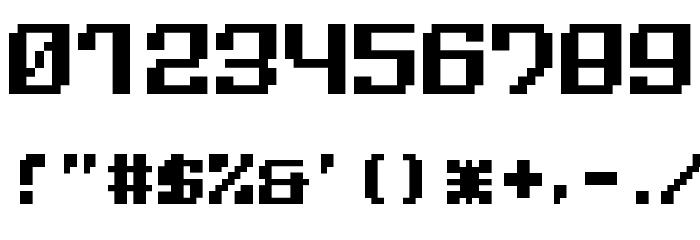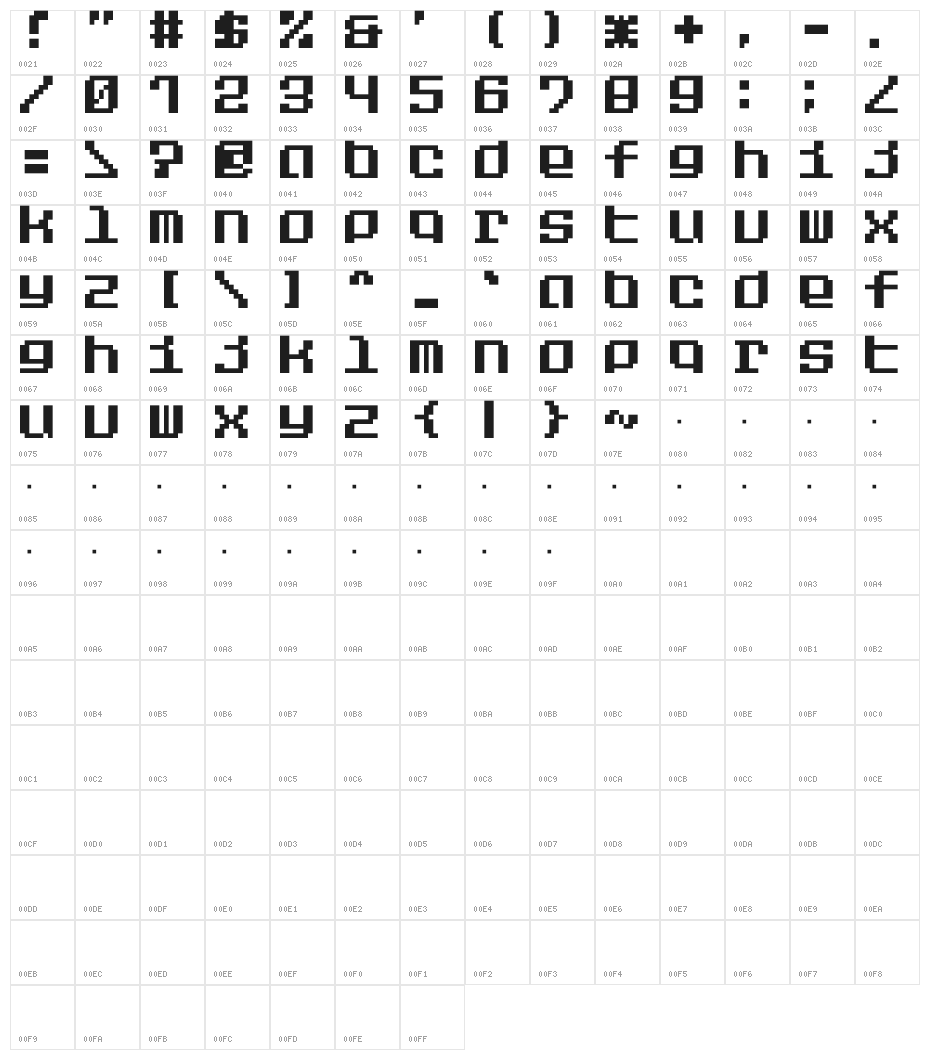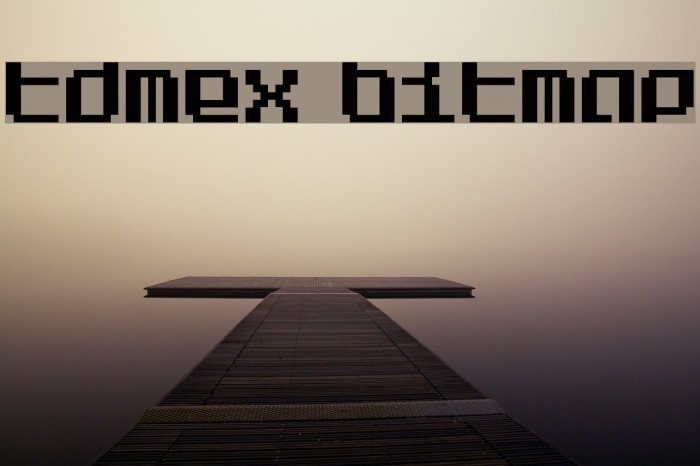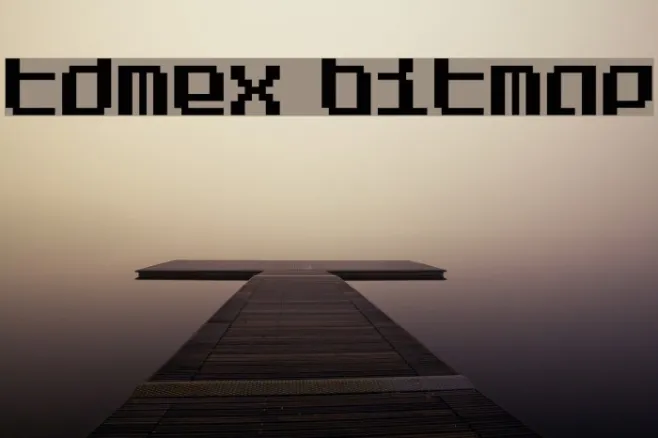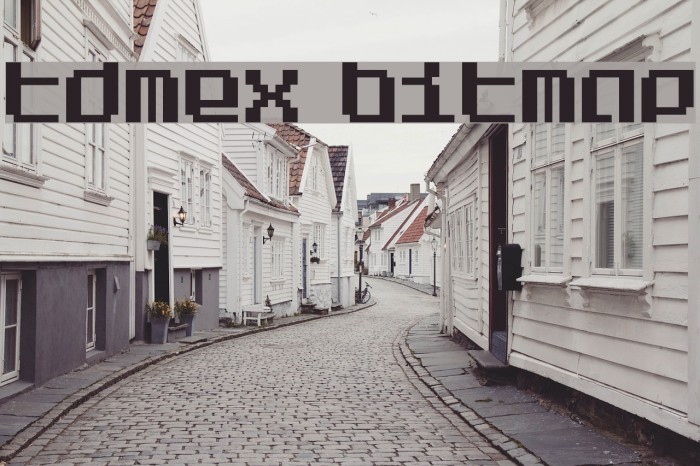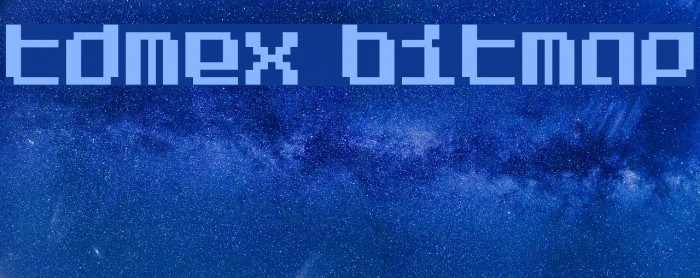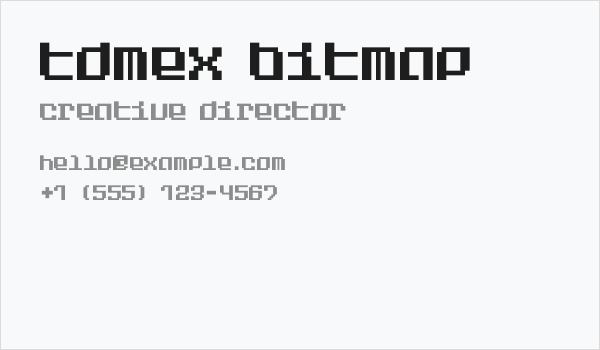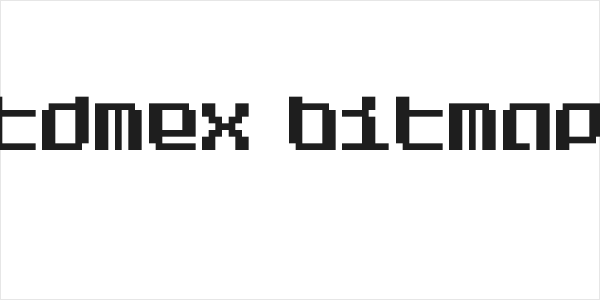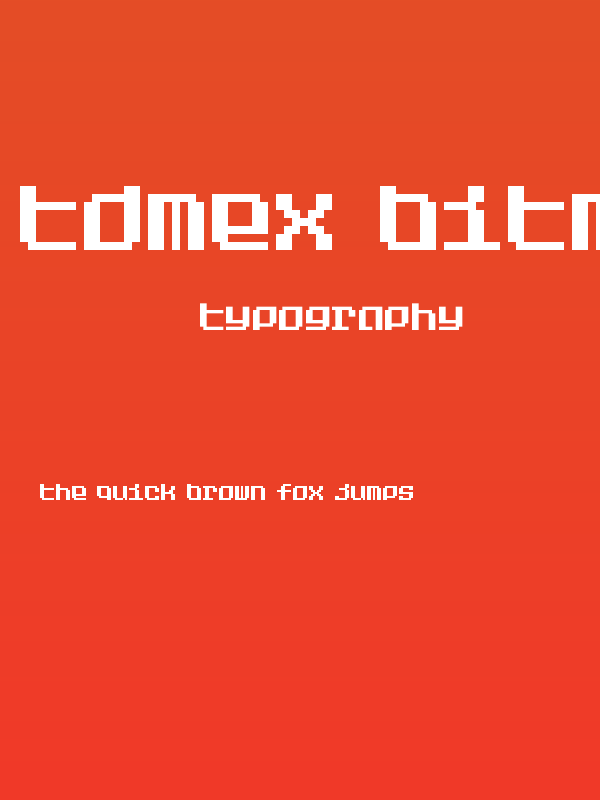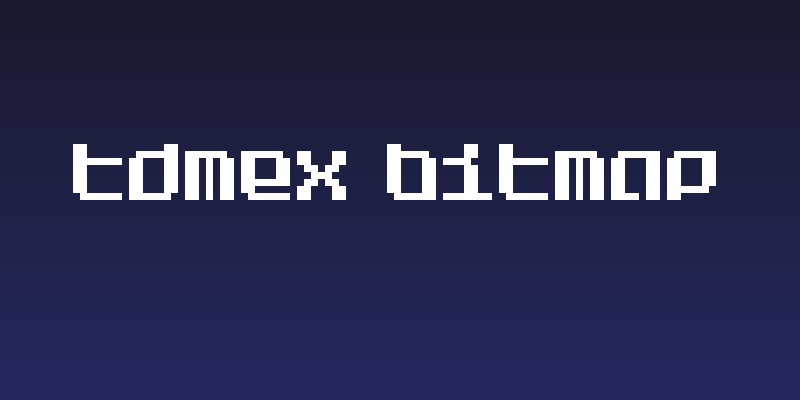
Tdmex Bitmap Font
Tdmex Bitmap Description
This font features a distinct pixelated style reminiscent of early digital displays and retro video games. Each character is constructed with a grid-like precision, giving it a blocky and geometric appearance. The uppercase and lowercase letters maintain a consistent height, contributing to a uniform look across the text. The numerals and special characters are similarly designed, ensuring a cohesive visual experience. This font's simplicity and clarity make it highly legible, even at smaller sizes. Its nostalgic aesthetic is perfect for projects that aim to evoke a sense of vintage digital technology.
| Use Case | Logos, Headlines, Digital displays |
| Proposed Projects | Ideal for retro video game graphics, digital-themed posters, and tech-inspired branding. |